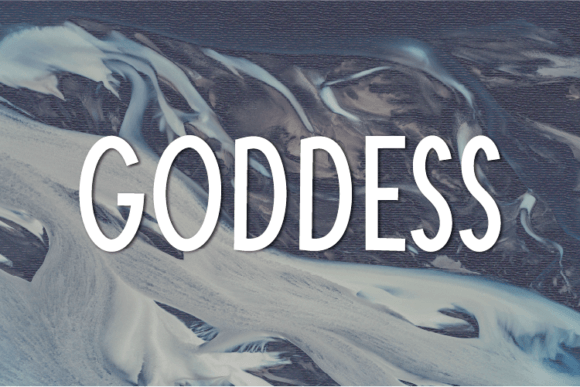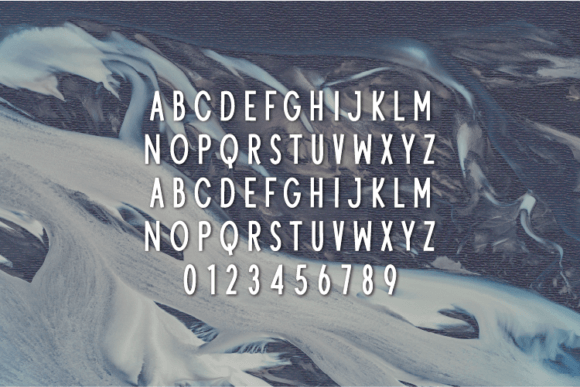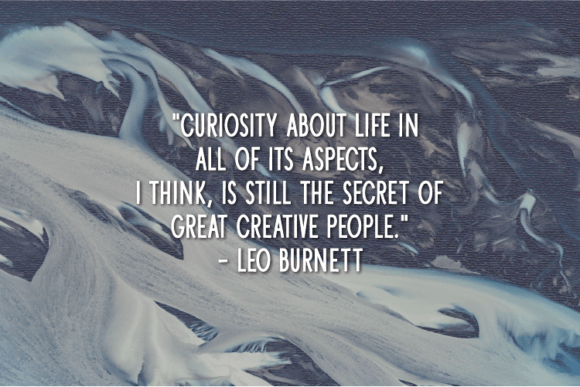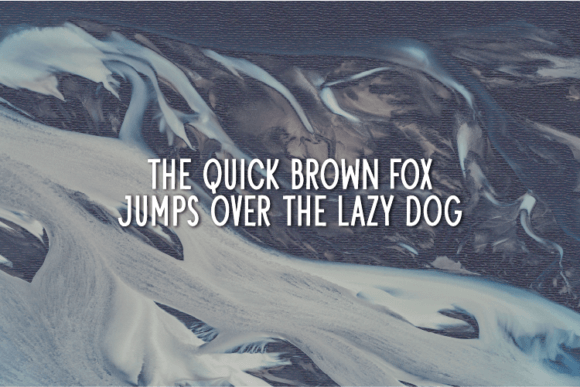
Goddess Font
About Goddess Font
“Goddess” is a welcoming and stylish handwritten font that embodies a friendly and cool vibe. Its minimalist and clean aesthetic is highly adaptable and can seamlessly enhance a wide range of design projects, including book covers, magazines, social media posts, invitations, and much more.
The unique appeal of “Goddess” lies in its ability to effortlessly merge a friendly, approachable style with a minimalist and clean look. This font effectively conveys a sense of modernity and versatility.
For various design concepts, “Goddess” brings a sense of adaptability and sophistication:
– In branding and logo design, “Goddess” adds a touch of modernity and uniqueness. Its clean and stylish style communicates professionalism and creativity, making your brand identity memorable and distinctive.
– In digital and print media, “Goddess” enhances the visual appeal of text and graphics. Whether you’re working on magazine layouts, marketing materials, or social media posts, this font lends a trendy and engaging quality to your content.
– For invitations and personal projects, “Goddess” infuses a sense of modern flair and authenticity into your designs. Whether you’re creating event invitations, greeting cards, or personal stationery, this font elevates the overall aesthetics, making your projects visually appealing and memorable.
– In presentations and professional documents, “Goddess” can help convey a sense of modernity and clarity. Its clean yet stylish appearance ensures readability while adding a touch of elegance to your content.
In summary, “Goddess” is a friendly and cool handwritten font that excels in various design contexts. Its versatility, modern appearance, and minimalist charm make it an ideal choice for a wide range of creative projects. When you incorporate “Goddess” into your designs, you’ll discover how it effortlessly enhances their overall aesthetics, giving them a modern and stylish character that resonates with your audience. Add “Goddess” to your design toolkit, and experience how it transforms your ideas into visually captivating and effortlessly cool creations.